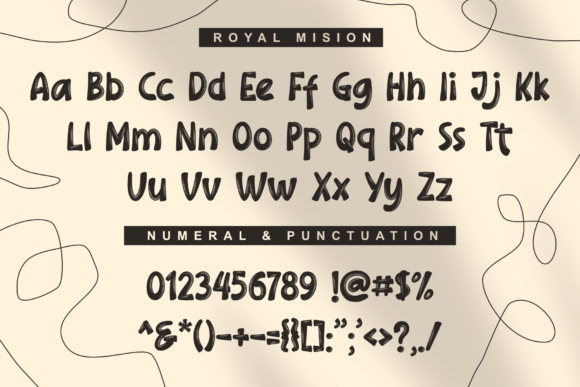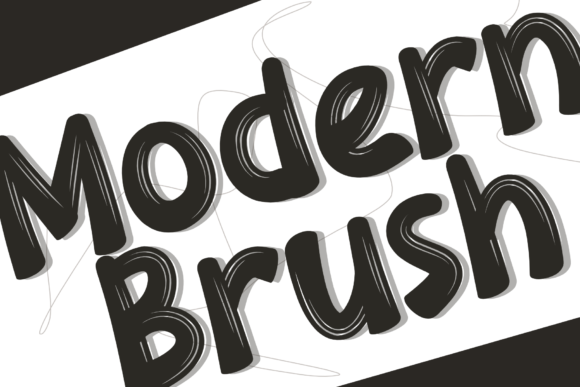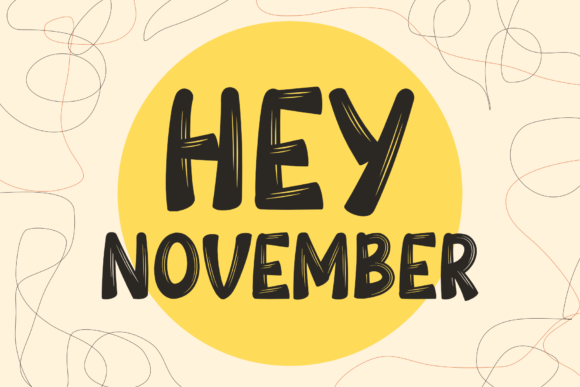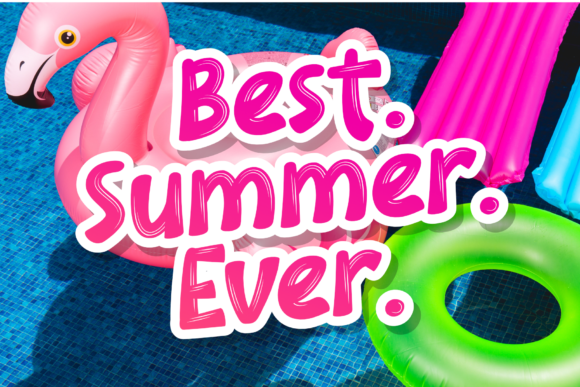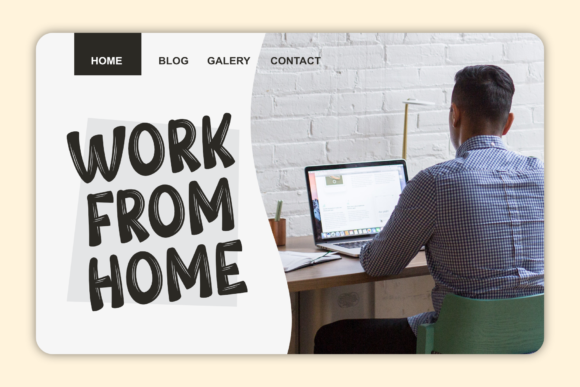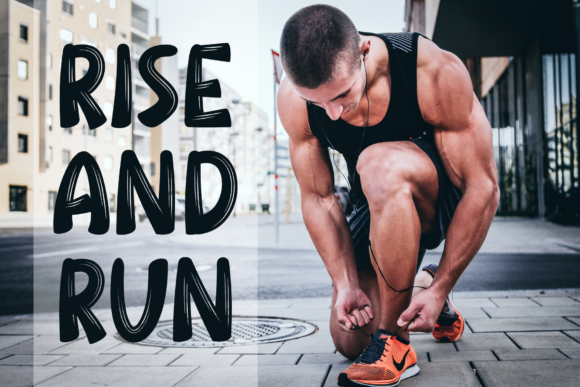
Introduction to Royal Mision Font
Royal Mision is a unique and interesting display font.
A little bit quirky, this font looks incredibly adept on a wide variety of contexts .